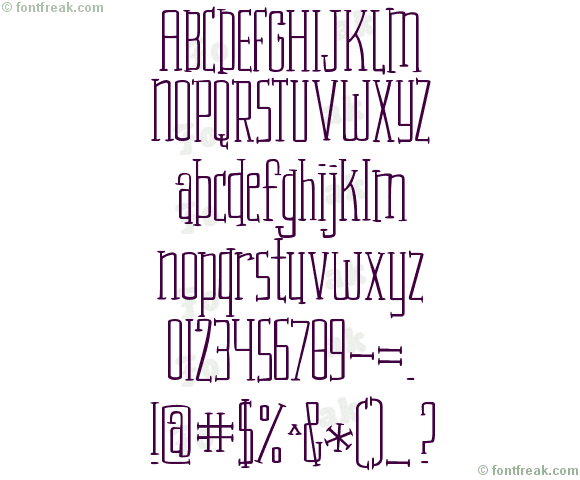
KG Attack of the Robots, designed by Kimberly Geswein, is a captivating display font that falls into the decorative category. This unique typeface features a playful, futuristic aesthetic, making it an ideal choice for projects that require a whimsical touch. The font is characterized by its sharp, angular strokes and a moderate contrast that lends it a dynamic yet readable quality. The spacing between the characters is well-balanced, ensuring clarity while enhancing its striking visual appeal. Decorative elements, such as the robotic influences evident in the letterforms, contribute to the overall theme, evoking a sense of adventure and creativity.
This font is particularly well-suited for a variety of creative applications. It works wonderfully for themed event invitations, especially those centered around science fiction or robotics. Graphic designers can utilize it in eye-catching movie posters or video game covers, where the font's quirky style can capture the audience's attention. Additionally, it is perfect for children’s book covers or educational materials that aim to engage young readers. Small business owners looking for a unique edge in their branding can also leverage the KG Attack of the Robots font for logos and promotional materials that stand out in a crowded market.
The target audience for this font includes graphic designers, content creators, and small business owners who seek to infuse their projects with a sense of fun and innovation. The KG Attack of the Robots font free download offers accessibility for anyone looking to elevate their design projects without breaking the bank. What truly makes this font stand out is its ability to merge playful creativity with practical application, providing designers with a versatile tool that sparks imagination and enhances visual storytelling.